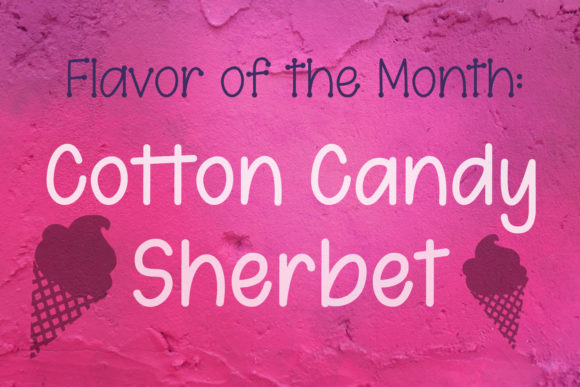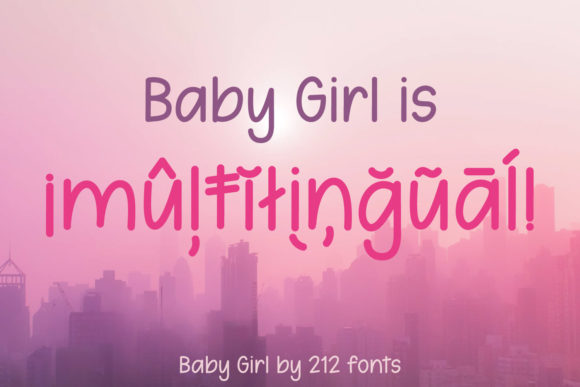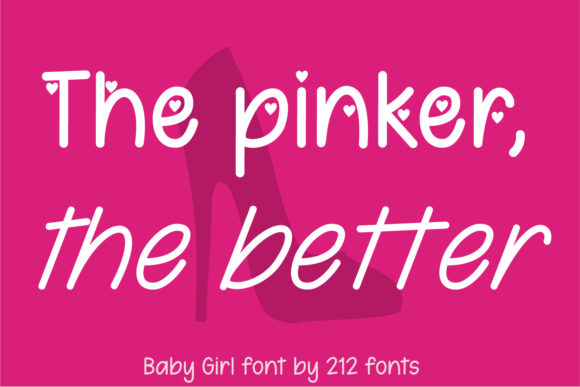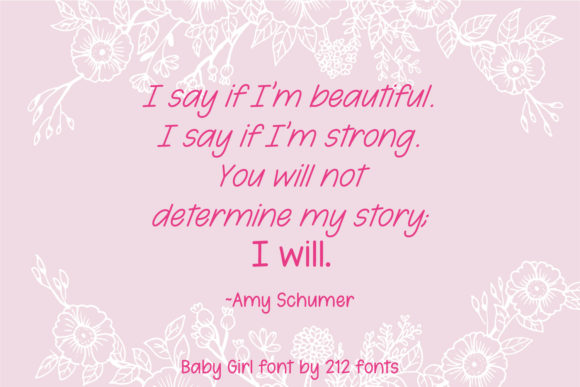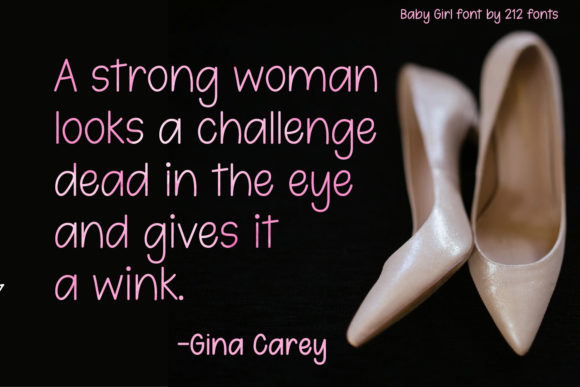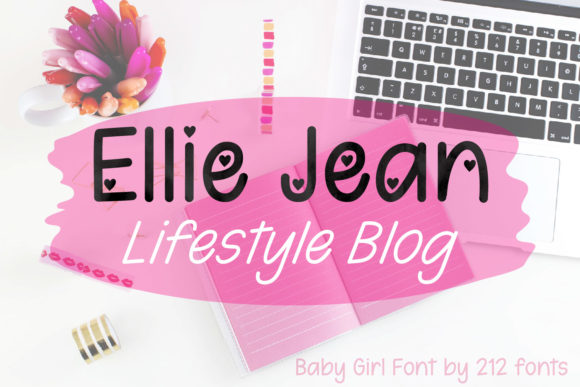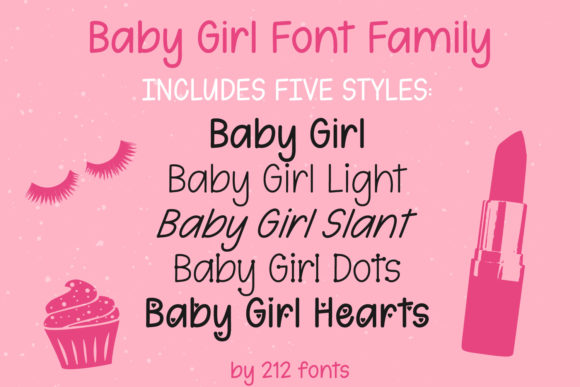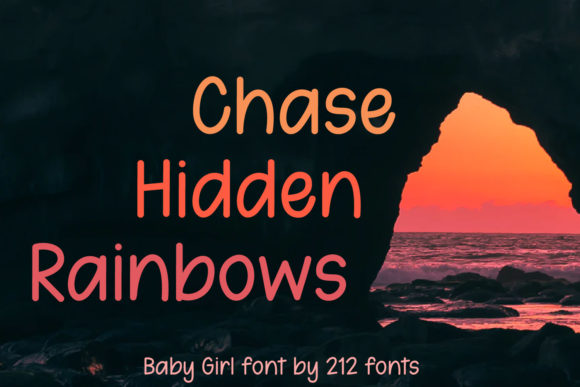
Baby Girl Font
About Baby Girl Font
Baby Girl is a sweet and friendly handwritten font. Delicate and versatile, this font will fit a variety of contexts. Add it to your favorite creative ideas and notice how it makes them come alive!